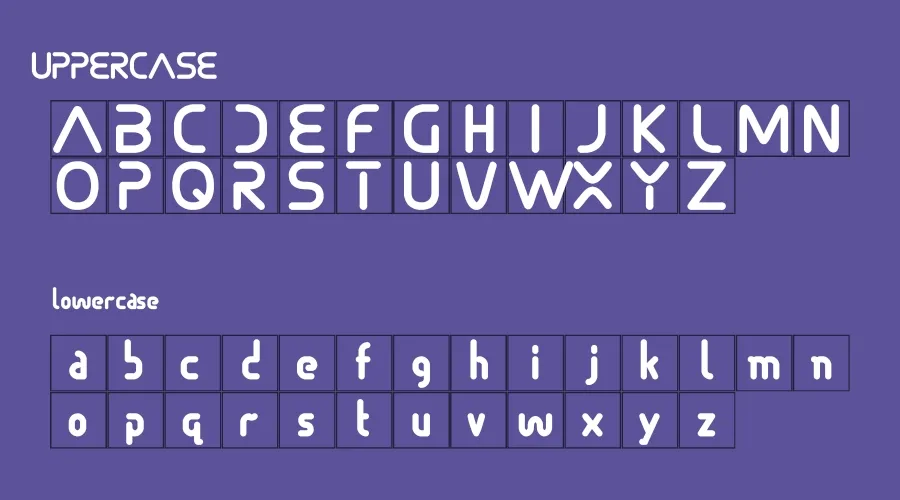
About Sonic Demon Font
Demonhill created the sans-serif Sonic Demon Font all characters and glyphs in this font are uniforms, which makes it very easy to read. Among the many places where this typeface is used are in books, magazines, and other publications.
It’s also a good option for headlines and body text. A lot of web designers, as well as graphic designers, used this attractive font for many projects, including in fashion magazines, newspapers, ads, and articles.
In addition to lowercase and uppercase characters, it features many rare glyphs. Any creative project can utilize it, whether it is a headline, body text, or something else.
Typefaces in this family are great for headlines, logos, and other creative designs. Graphic designers looking for a fun and unique font to use in their projects will enjoy Font. Print and digital designs can be created using it.
The typeface is commonly used by graphic designers, web designers, and advertising agencies. A stylish website can be created with this typeface imported into a CSS file. Several amazing designs have been created using this typeface.
It is a popular typeface on the internet and is perfect for those seeking a unique and stylish font to use. Create amazing designs by pairing this font with other fancy fonts.
There are a variety of applications for this font, including website headers and branding for companies.
Sonic Demon Font View
Name | Sonic Demon Font |
Designer | Demonhill |
Style | Sans-Serif |
Is Sonic Demon Font good for graphical design?
In addition to headlines and logos, Sonic Demon Font makes for an excellent choice for any inspired project. Both digital and print designs can be created with it.
Where can I use Sonic Demon Font?
Sharp and clean features enable this typeface to be used for numerous plans, including publications, placards, and billboards.